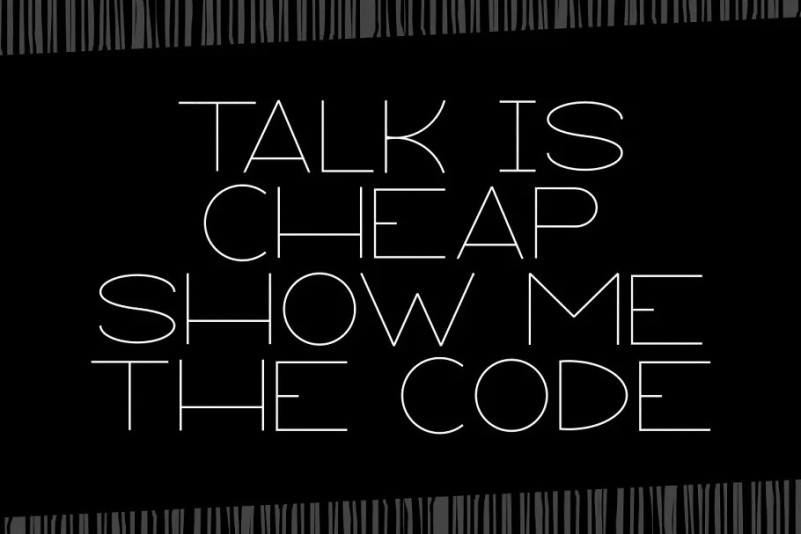
Project Of Code Font
Project Of Code Sans Serif Font is an all-caps minimalist sans serif font crafted & designed by PutraCetol Studio. Project Of Code a contemporary, Display Sans inspired display typeface full of character, quirky ligatures, and glyphs to keep your designs fresh.
Project Of Code is a display font that we recommend using in the following types of work; magazines (titles and layouts), logos and branding, invitations, quotes, blog headers, posters, and advertising.